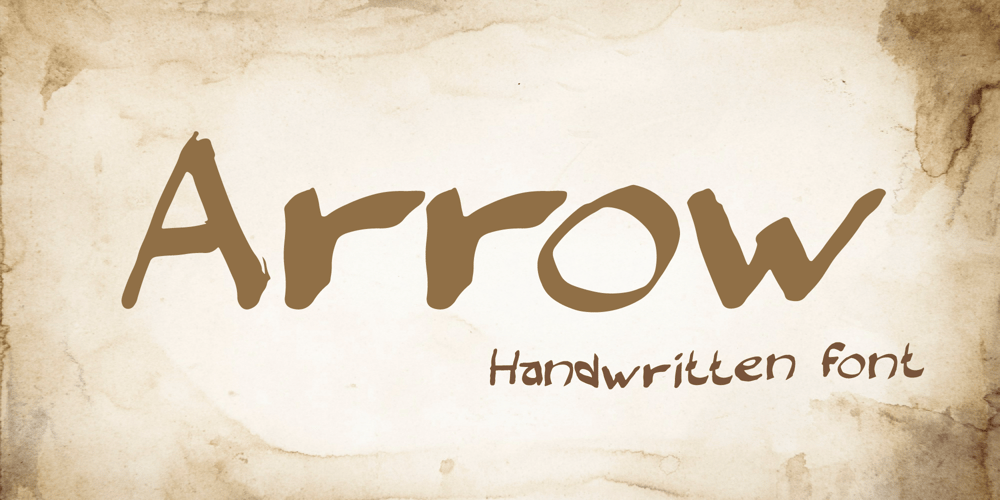
Arrow Font Family was designed by Sol Hess and published by Arkalandara. Arrow contains 1 styles and family package options. Handwriting with unique thickness lines often refers to a style of writing where the thickness of the lines varies throughout each stroke, adding a dynamic and artistic dimension to the overall appearance. This technique is commonly associated with calligraphy and hand lettering, this style of handwriting adds an artistic touch to written communication, emphasizing the aesthetic qualities of the script. It requires skill and control, making it a popular choice for those who appreciate the beauty of handcrafted lettering